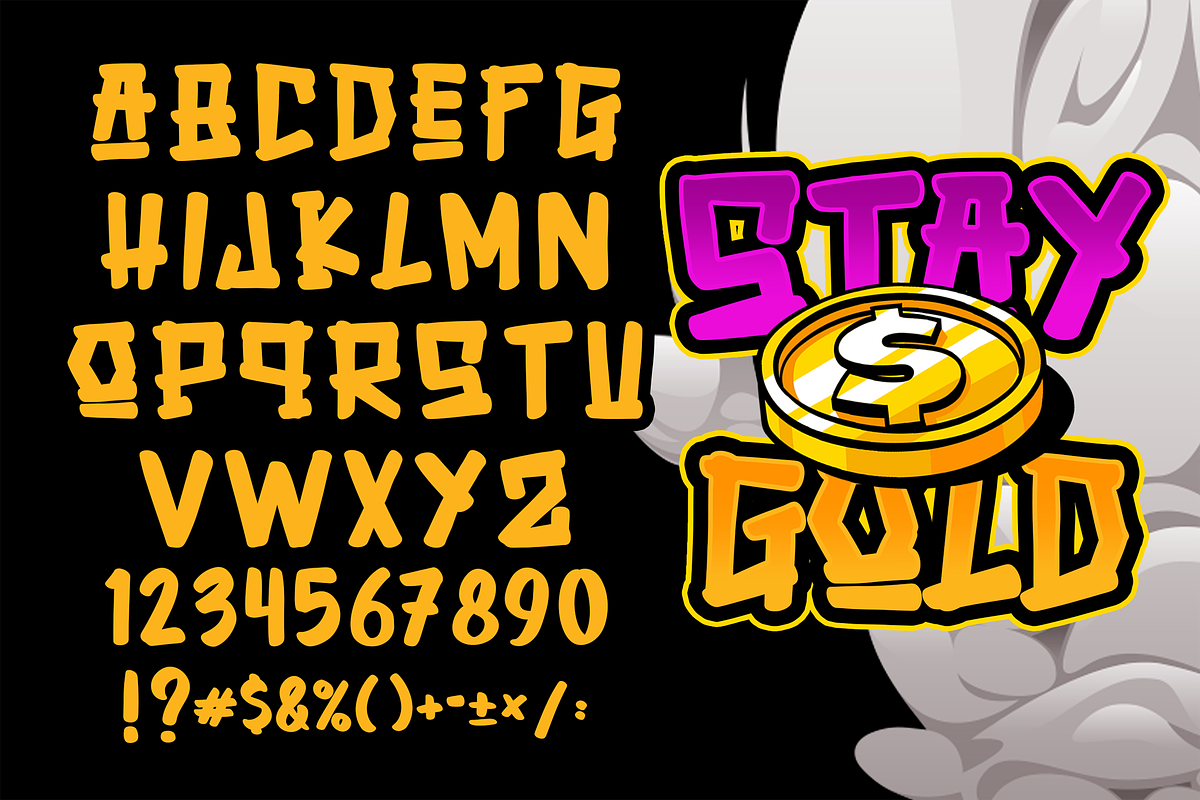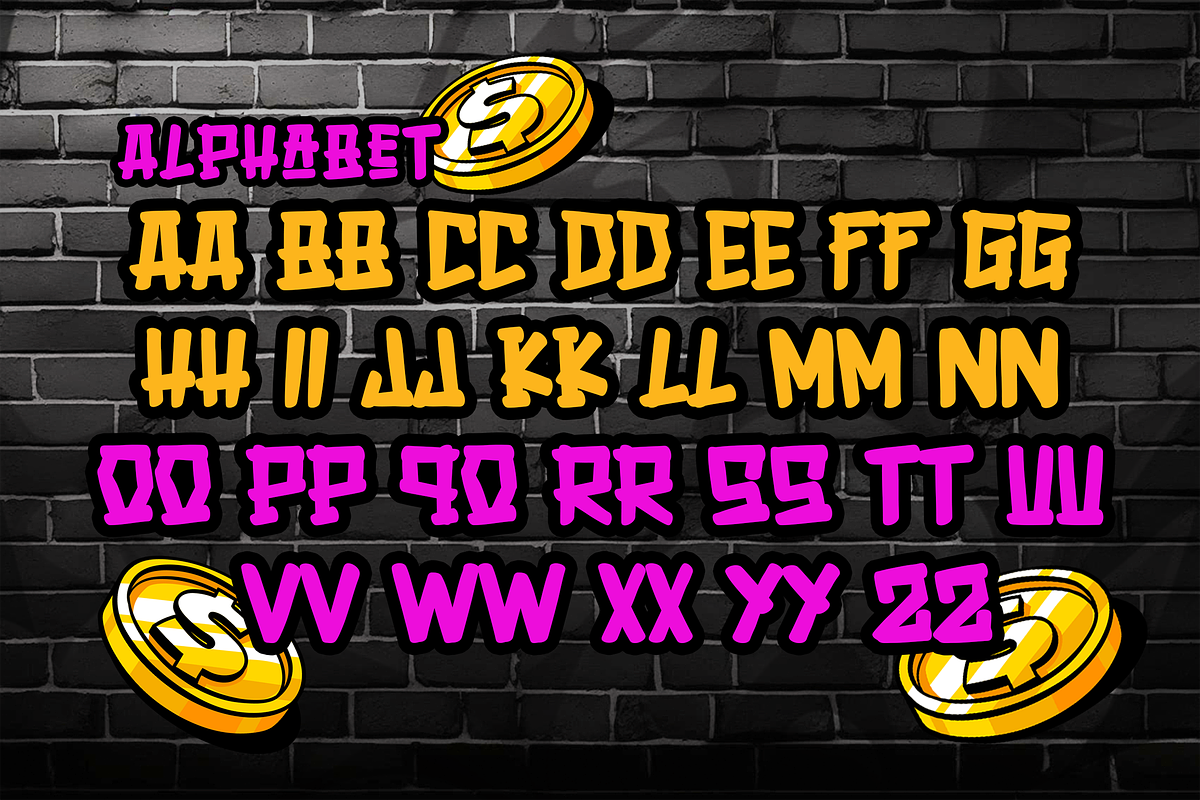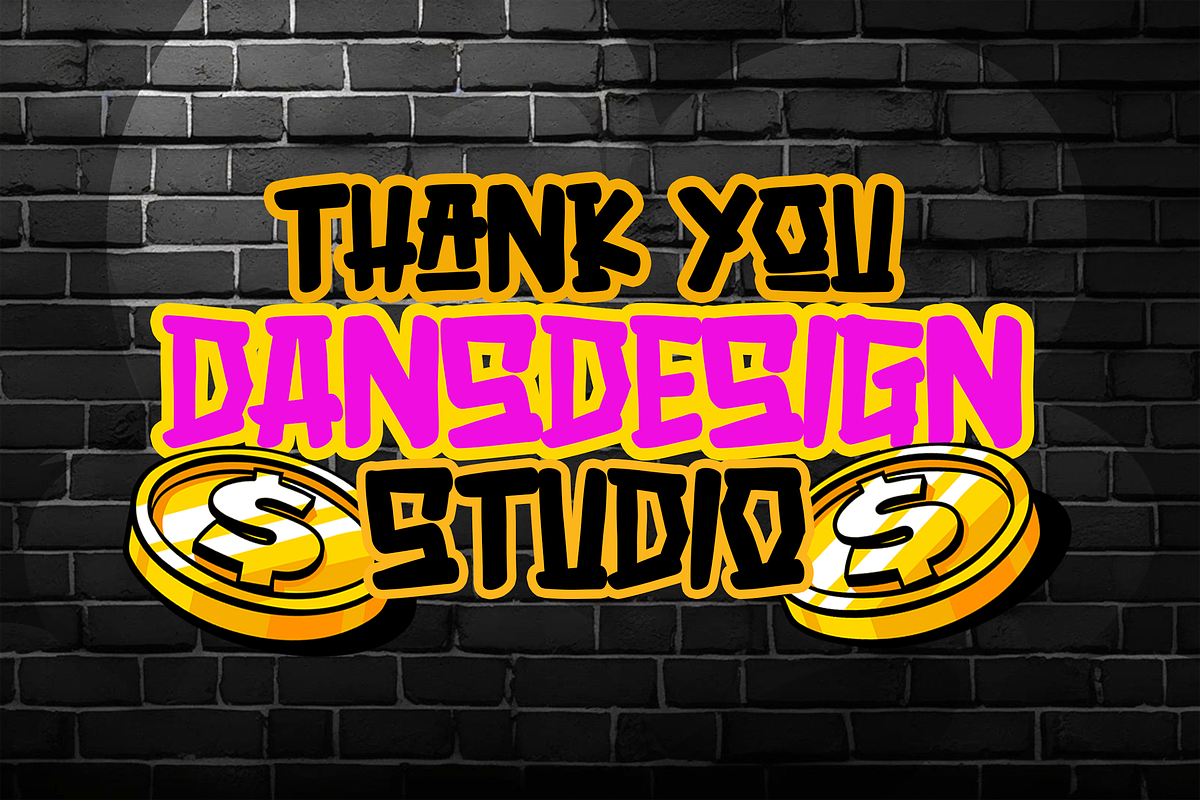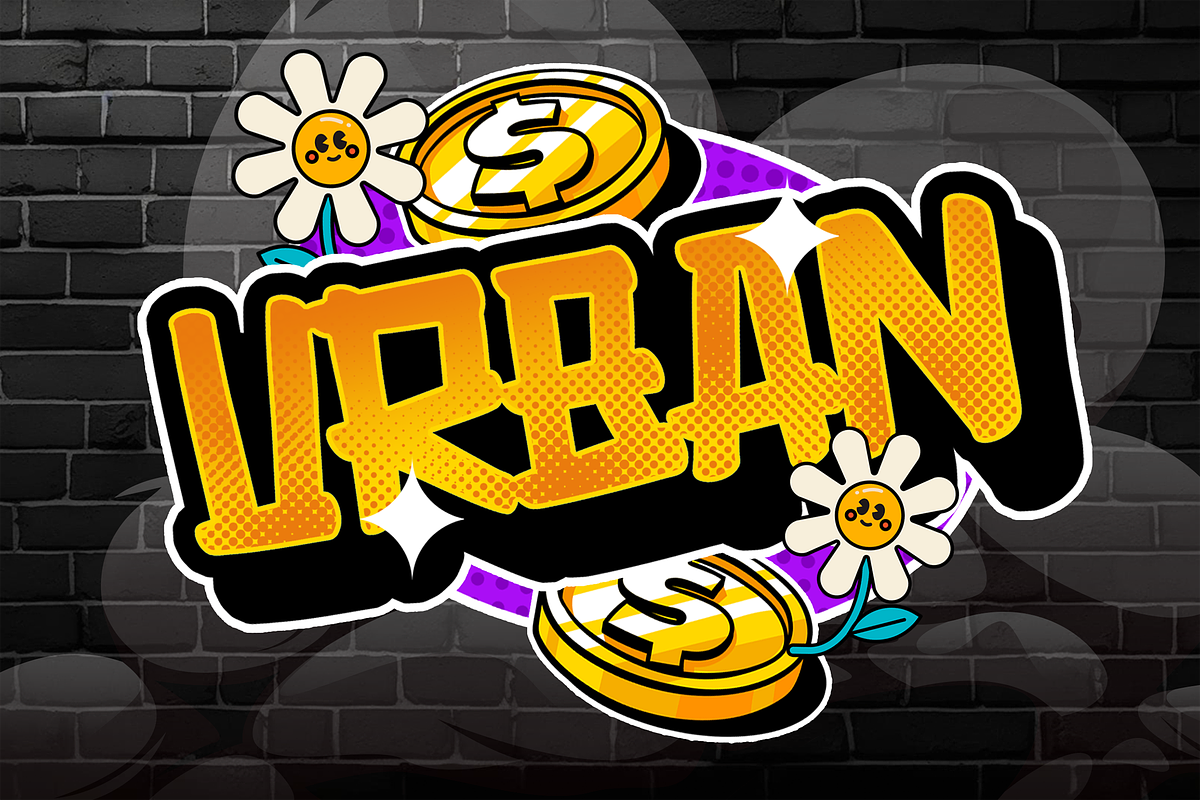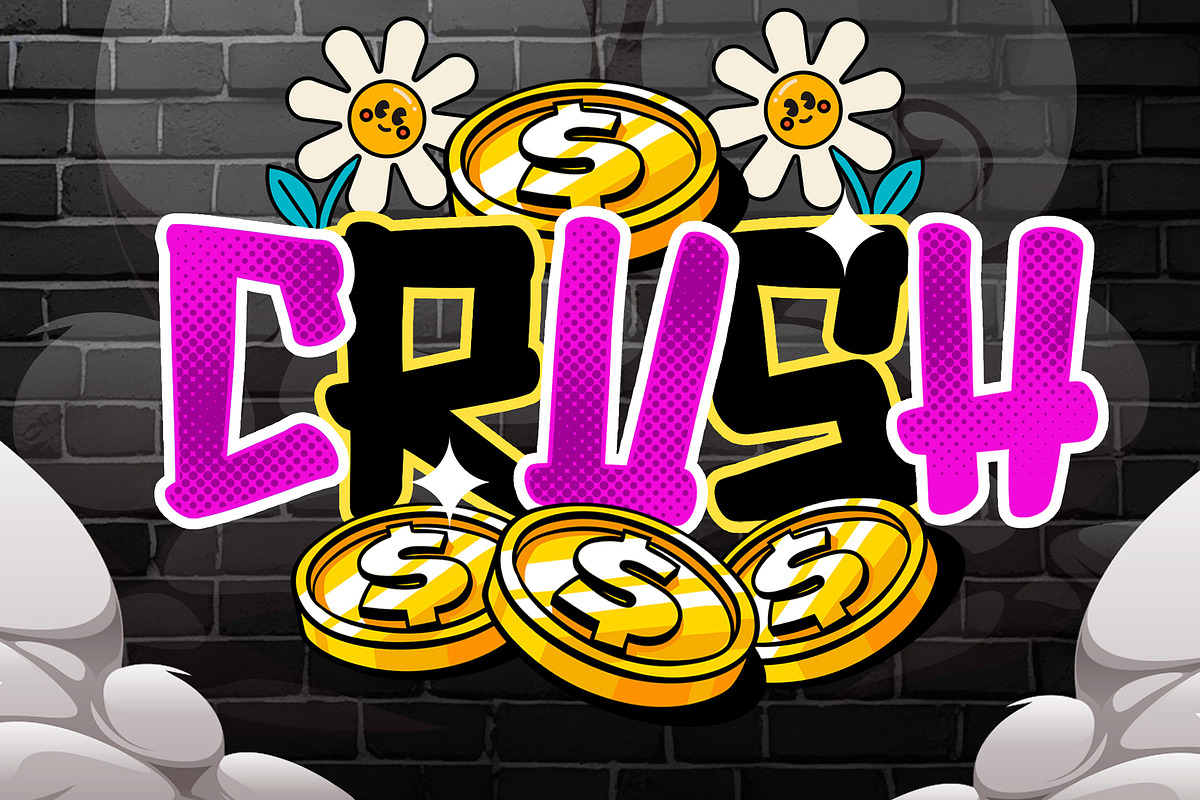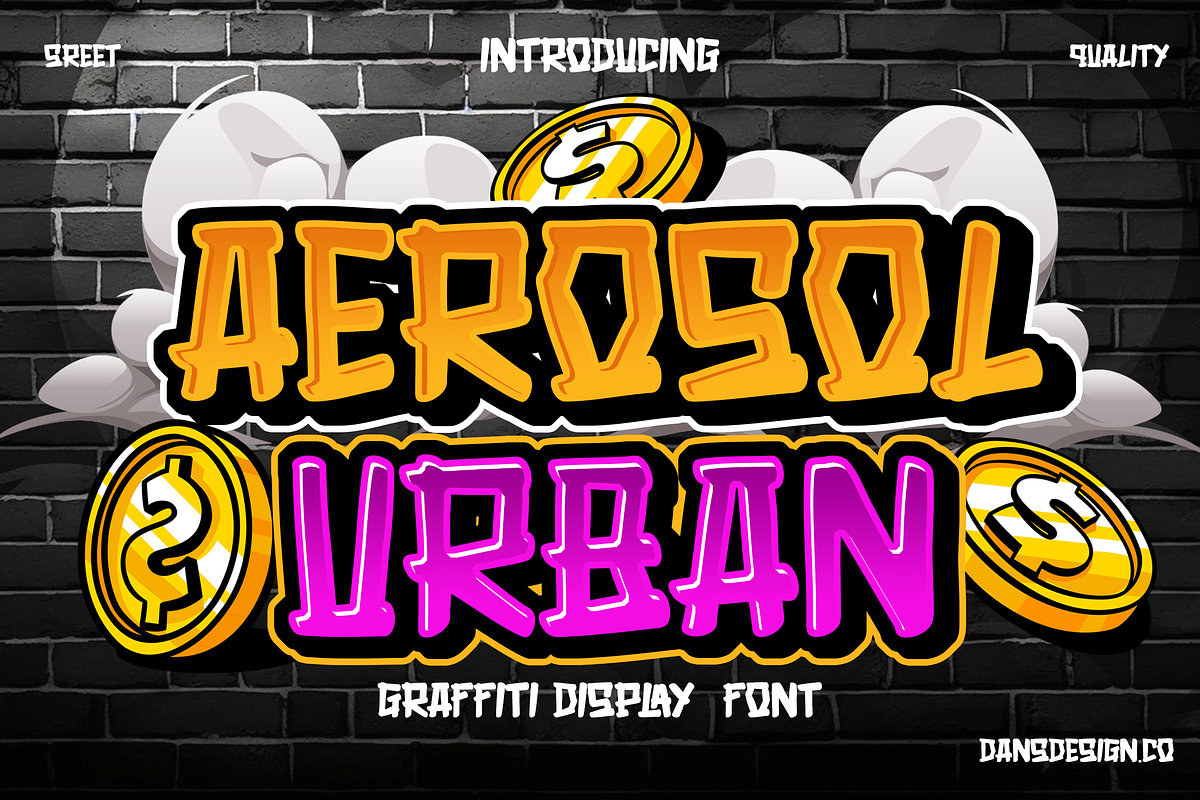
Aerosol Urban Modern Marker Graffiti
Aerosol Urban Modern Marker Graffiti Brush Font a distinct, highly detailed. GRAFFITI Display Font. It would make a great choice for exquisite retro-urban designs, business branding, logos, Apparel designs, and more.